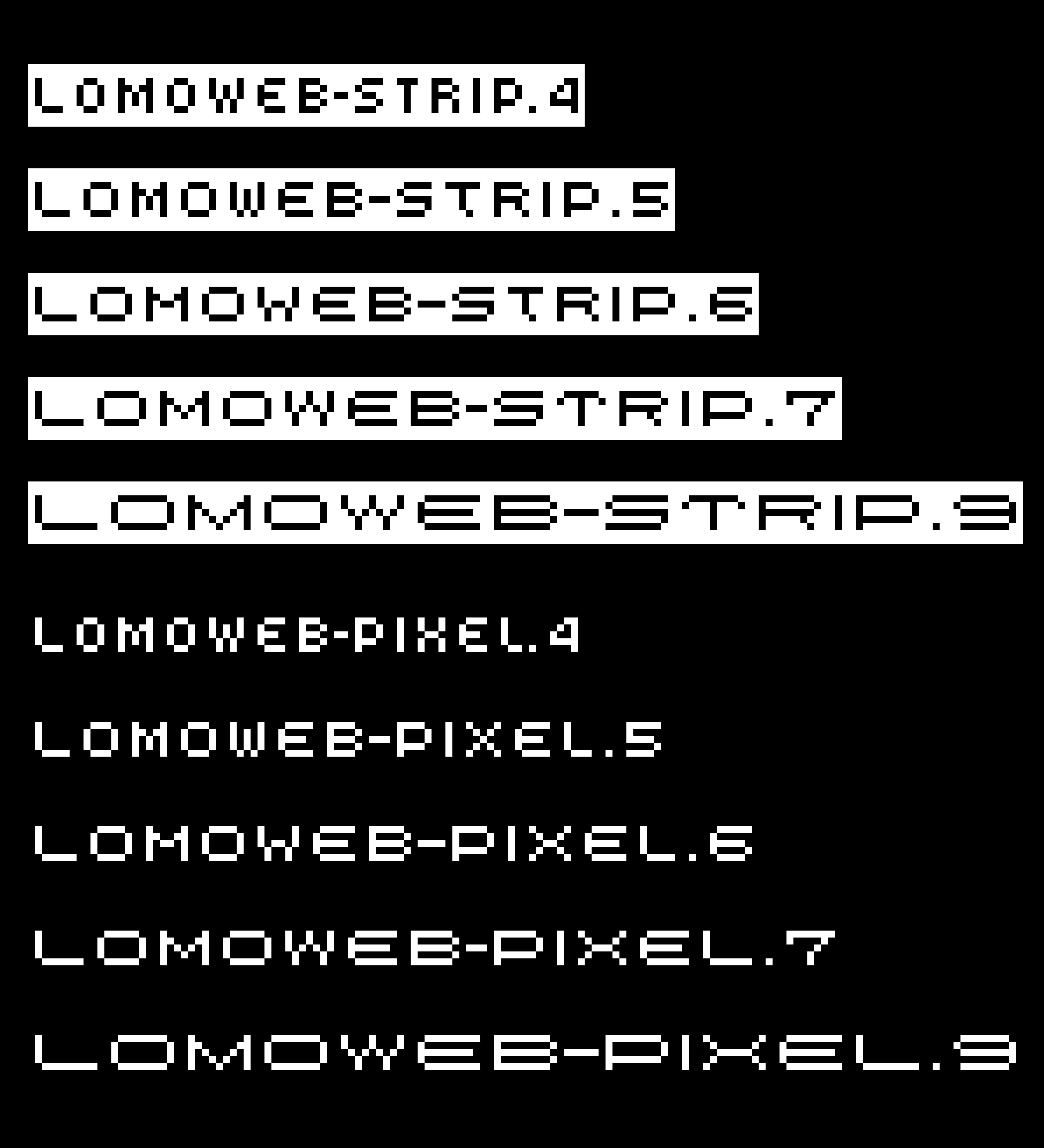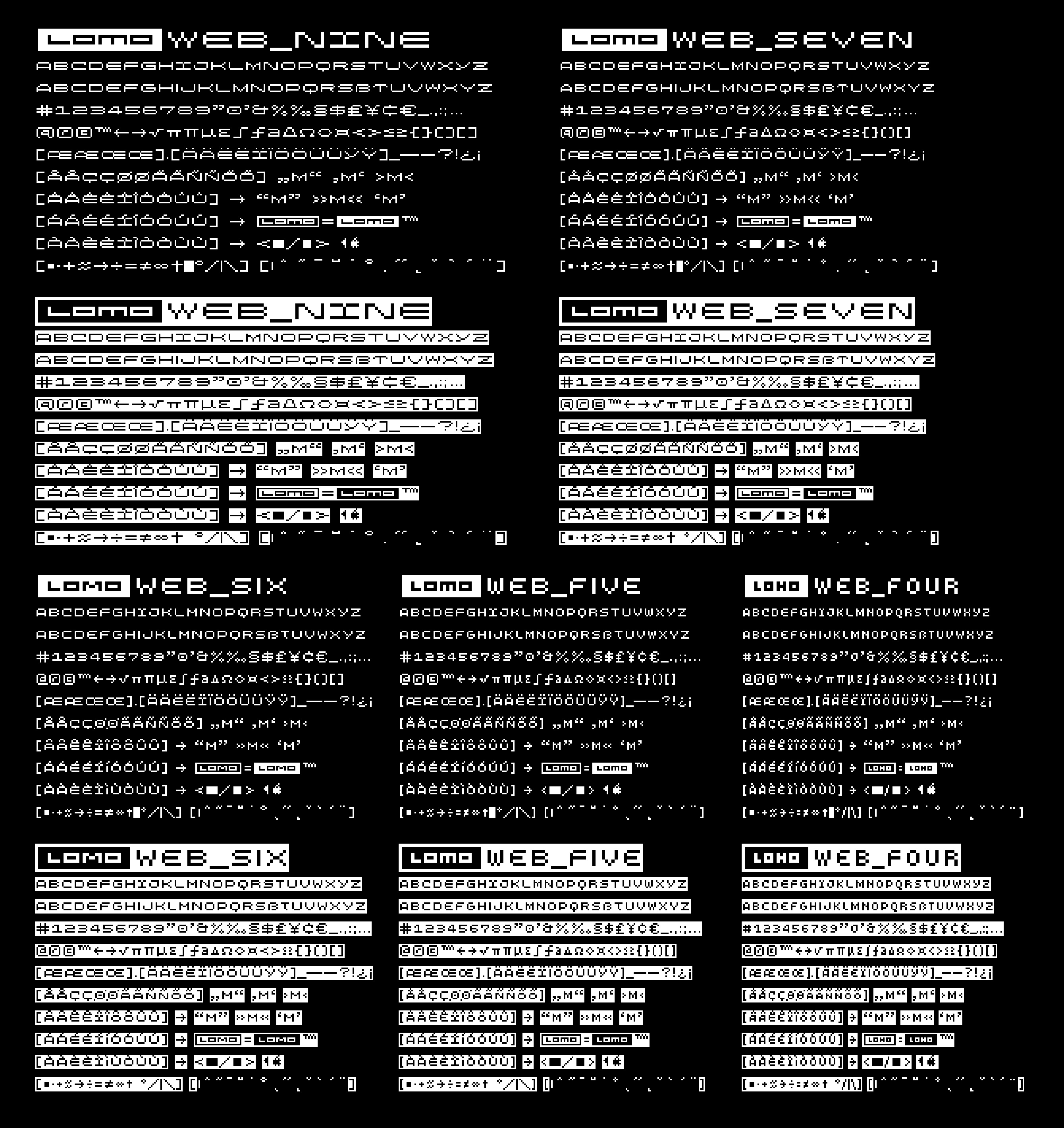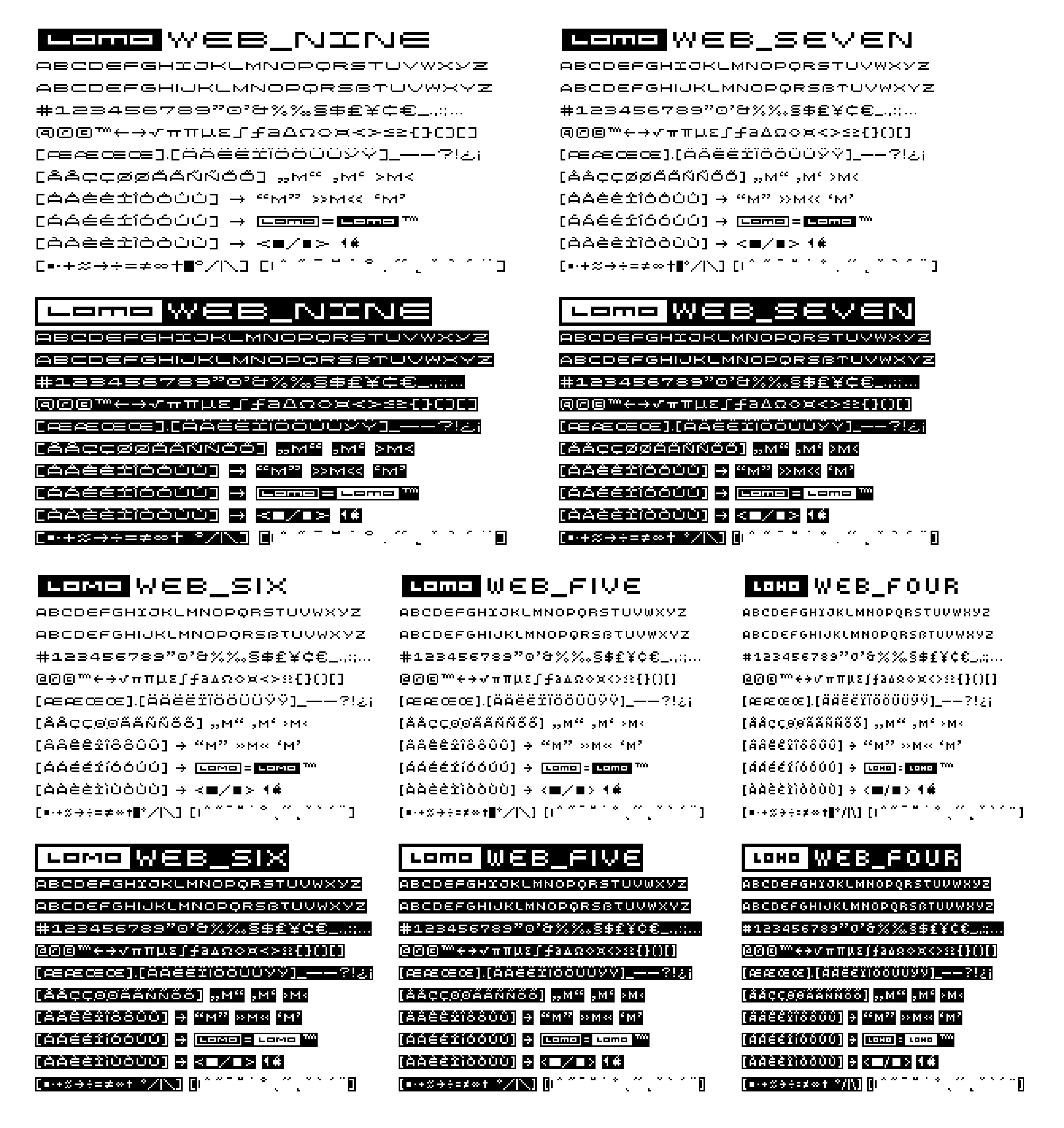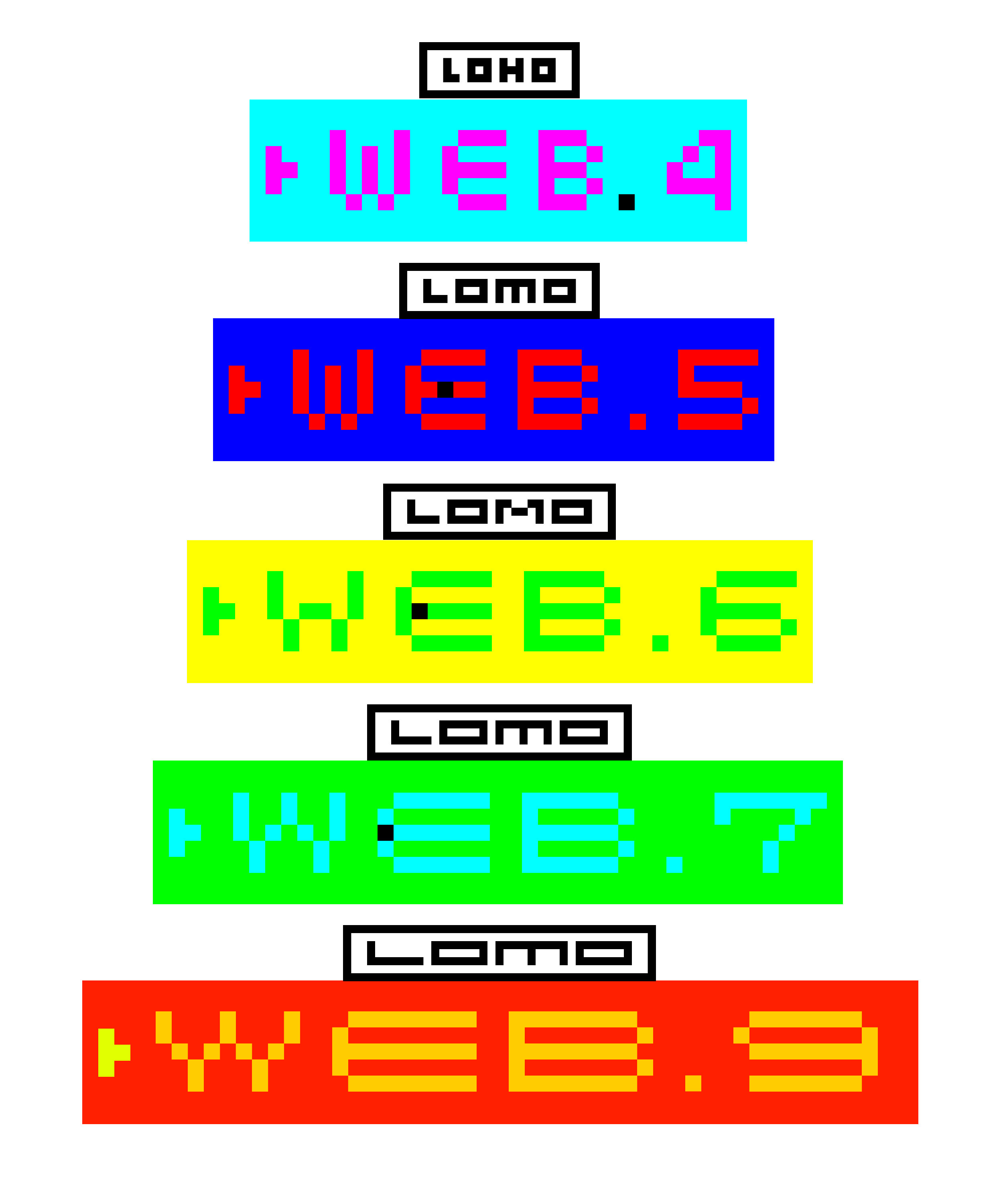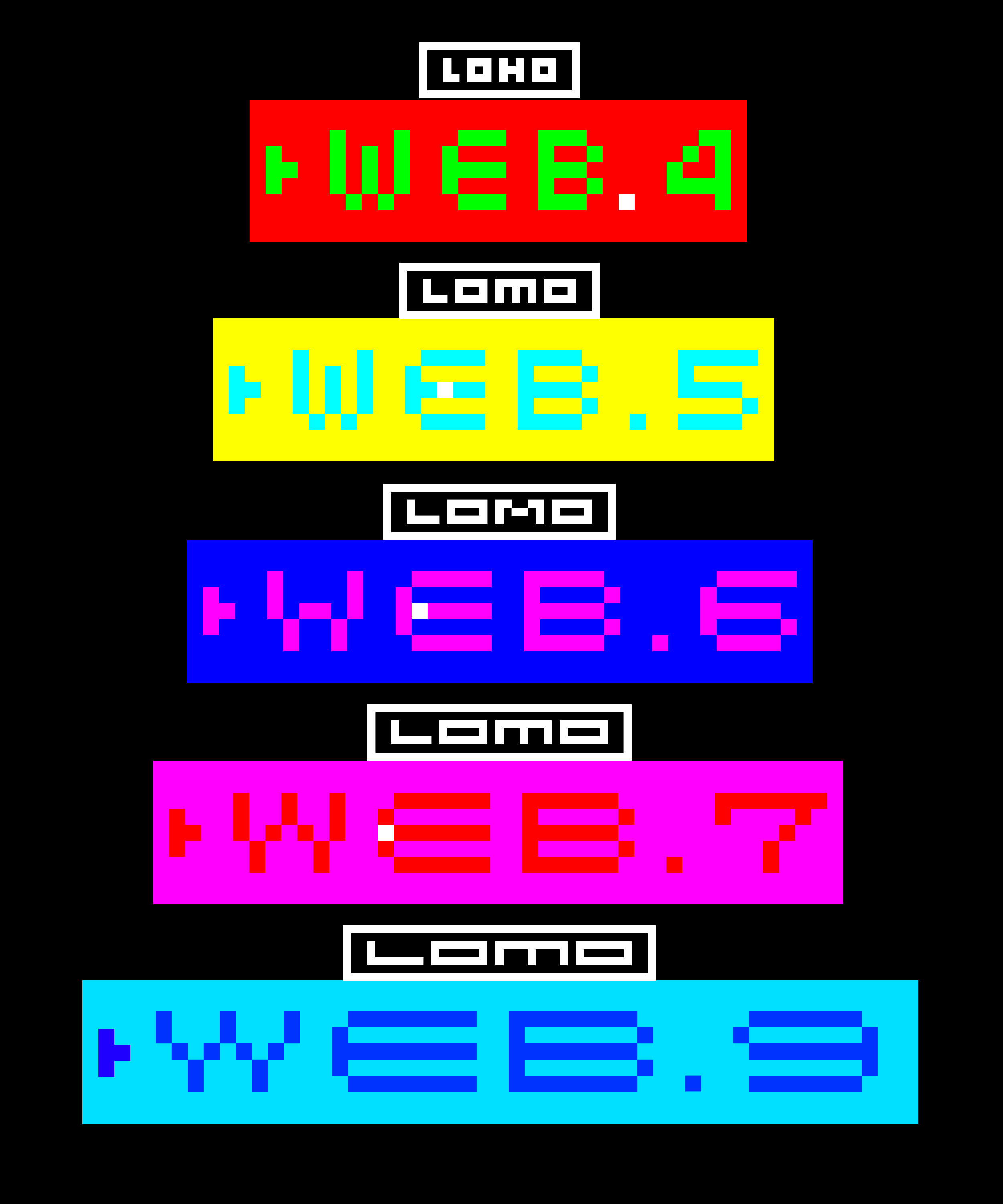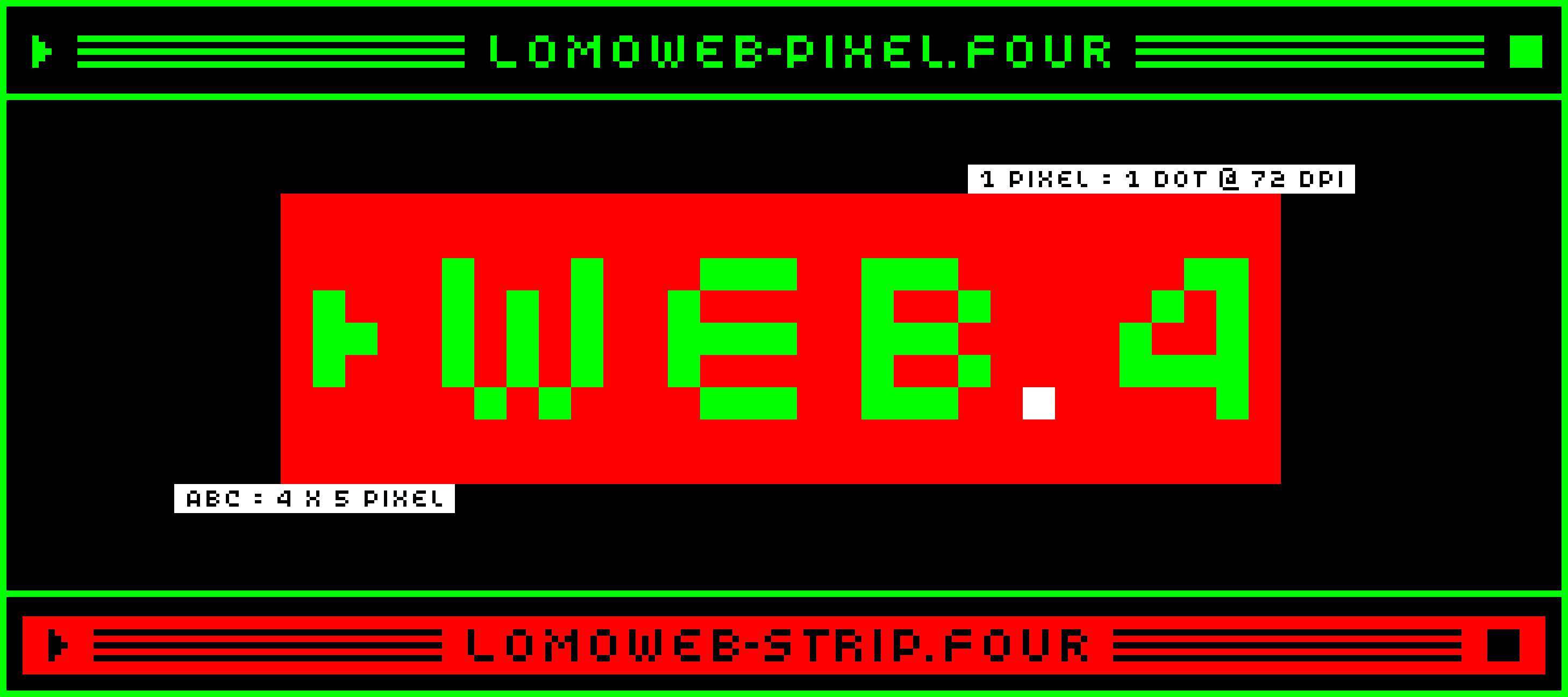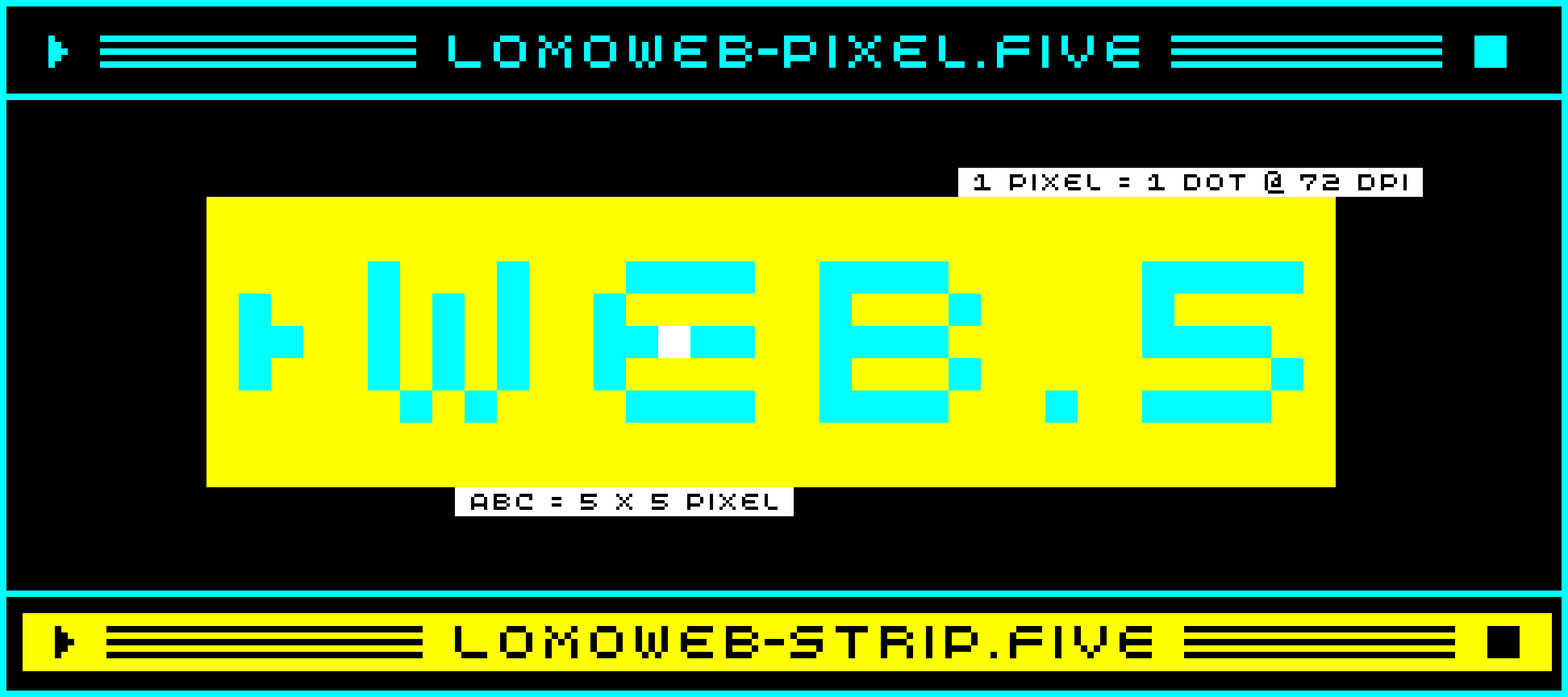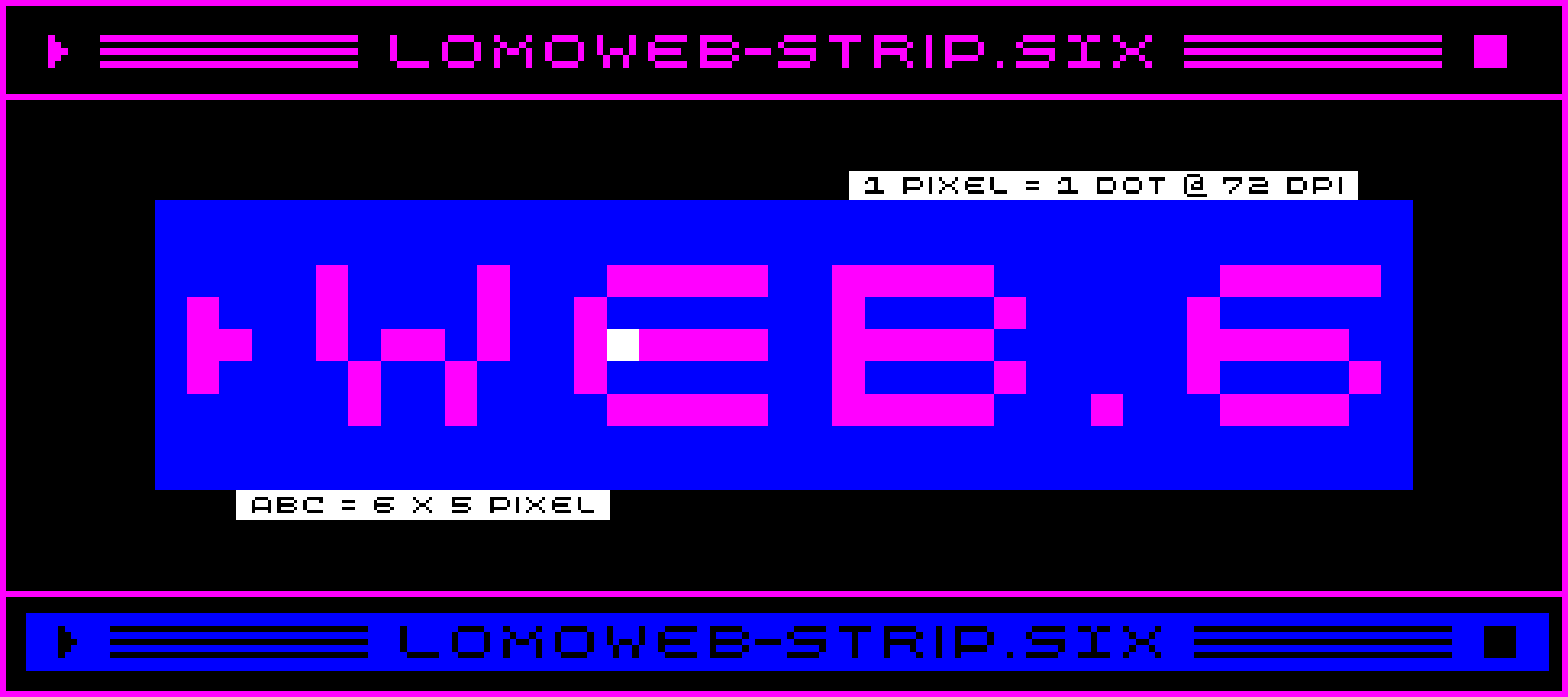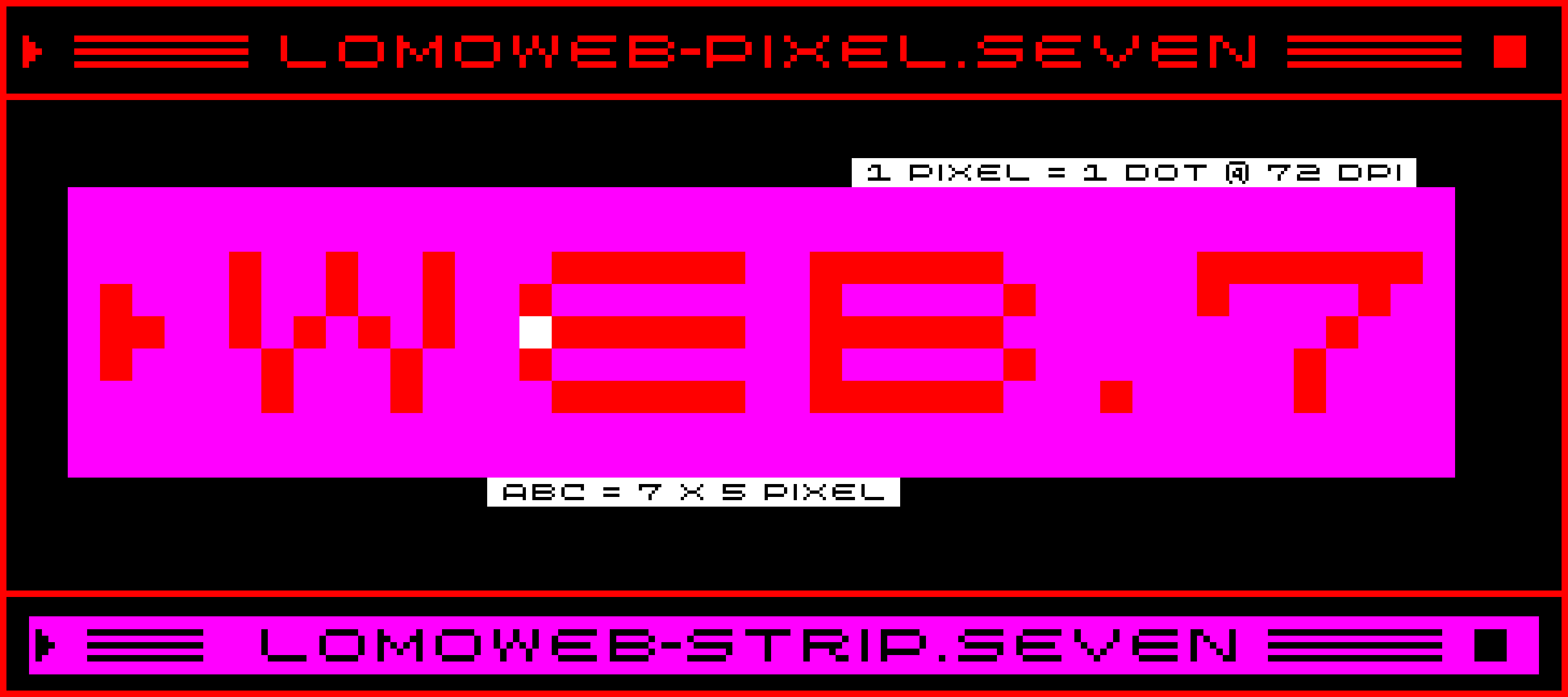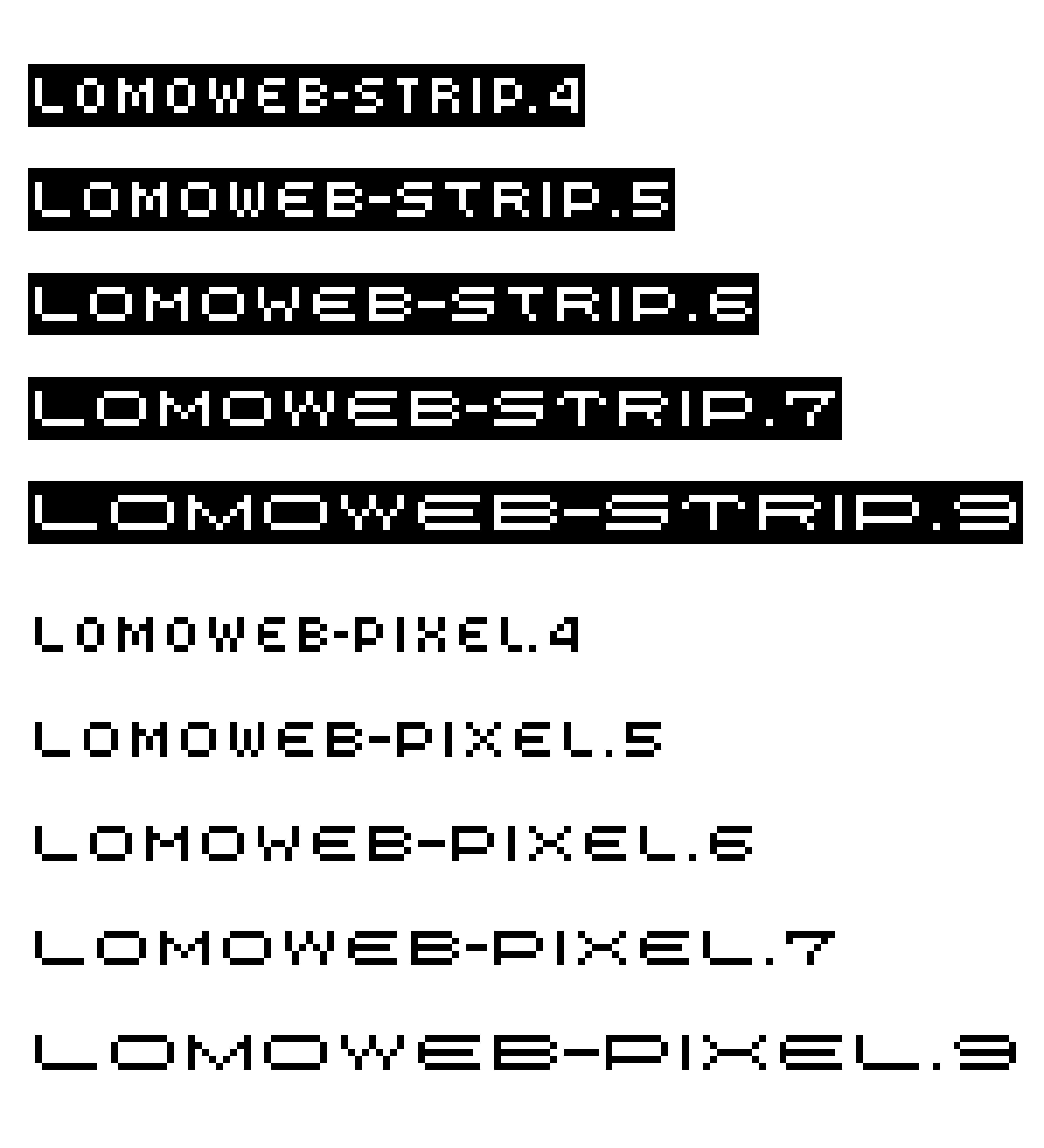
Lomo Web
1997–1998
From 1997 to 1999, the Lomographic Society developed a new website with Australian web designer Julian Wong. Wong wanted a custom font for this design because there was no suitable font available on the global market for the internet at that time. As a result, the second Lomo font family was created almost simultaneously from 1997 to 1998: LomoWeb, a capital mini web font based on 5-pixel letter height and a square pixel point for the smallest possible use on screen. The font initially contained ten font styles to ensure typographic flexibility.
In 2002, Linotype/Monotype released 10 styles of LomoWeb.